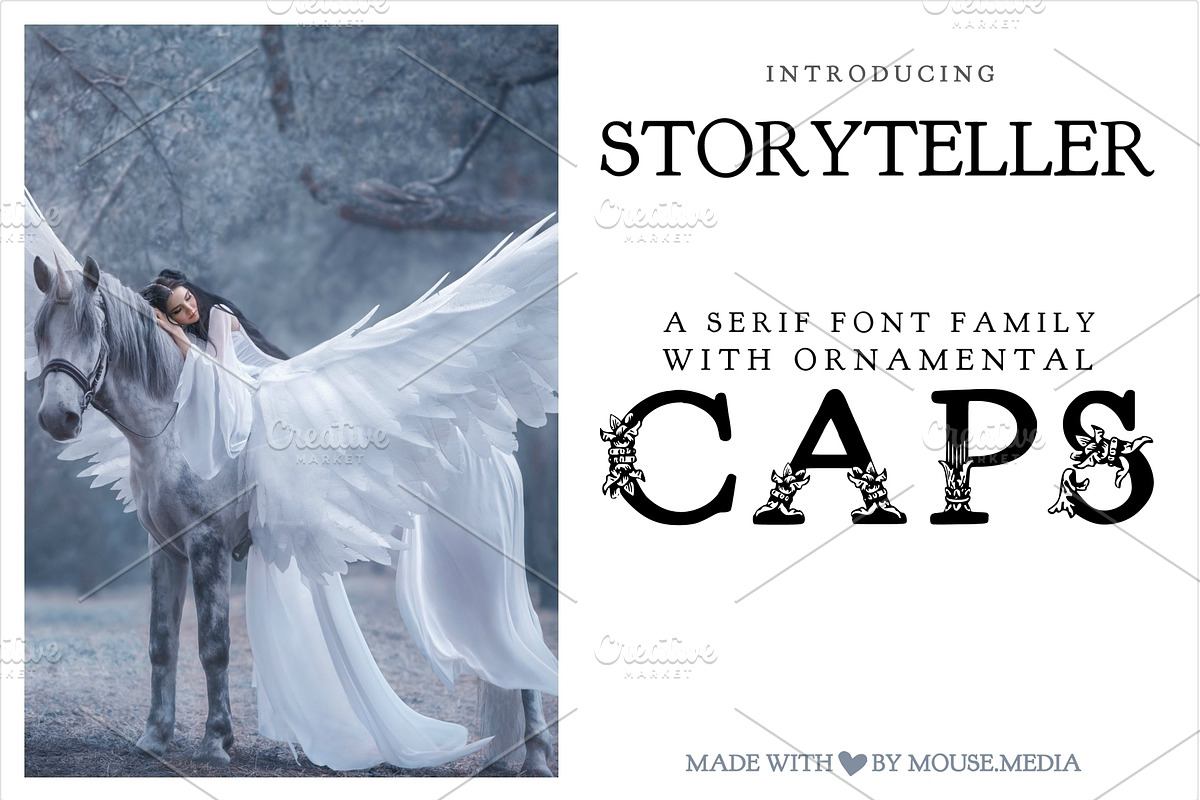
Storyteller Serif Font w Pretty Caps Free Download
Storyteller Serif Font w/ Pretty Caps Free Download
Please note, you must purchase this font for commercial use. However, you can easily download Storyteller Serif Font w/ Pretty Caps Free Download for personal use and testing purposes. Storyteller Serif Font w/ Pretty Caps is an elegant and charming serif typeface designed to bring a touch of sophistication and beauty to your projects. With its delicate serifs and unique, decorative capital letters, this font is perfect for high-end branding, editorial designs, invitations, and logos. Storyteller Serif Font w/ Pretty Caps Free Download allows you to create refined, stylish typography with a beautiful contrast between the classic serif structure and the stunning decorative caps. Whether you're designing a luxury brand identity or a romantic wedding invitation, this font adds a distinctive, elegant flair to your designs. Download Storyteller Serif Font w/ Pretty Caps Free Download today and explore its potential before opting for a commercial license.